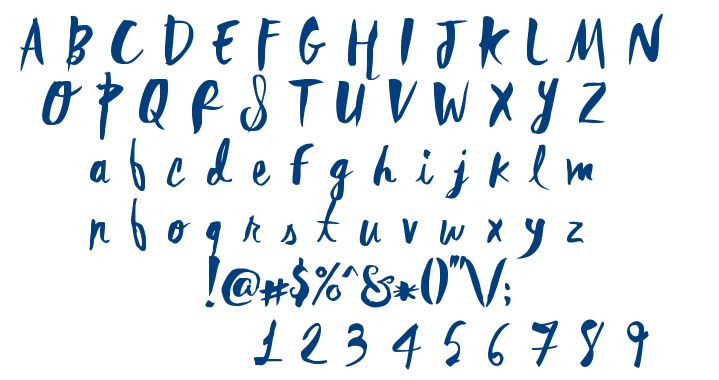
Rebel Heart font
Most of my fonts are made from handwriting/brush letters found on famous albums or anything related. Just for fun. For this reason, they all come with a nice variety of extra letters. And YES, you can download them and use them for YOURSELF for free. I'm not a professional, I just do it for fun. I hope you enjoy it my work!